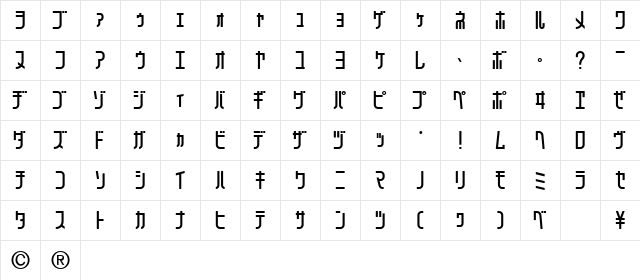
71mksdKt Medium
Design Context for 71mksdKt Typeface
71mksdKt takes a measured approach to typography — its balanced proportions and neutral character make it a reliable workhorse for both digital and print work.